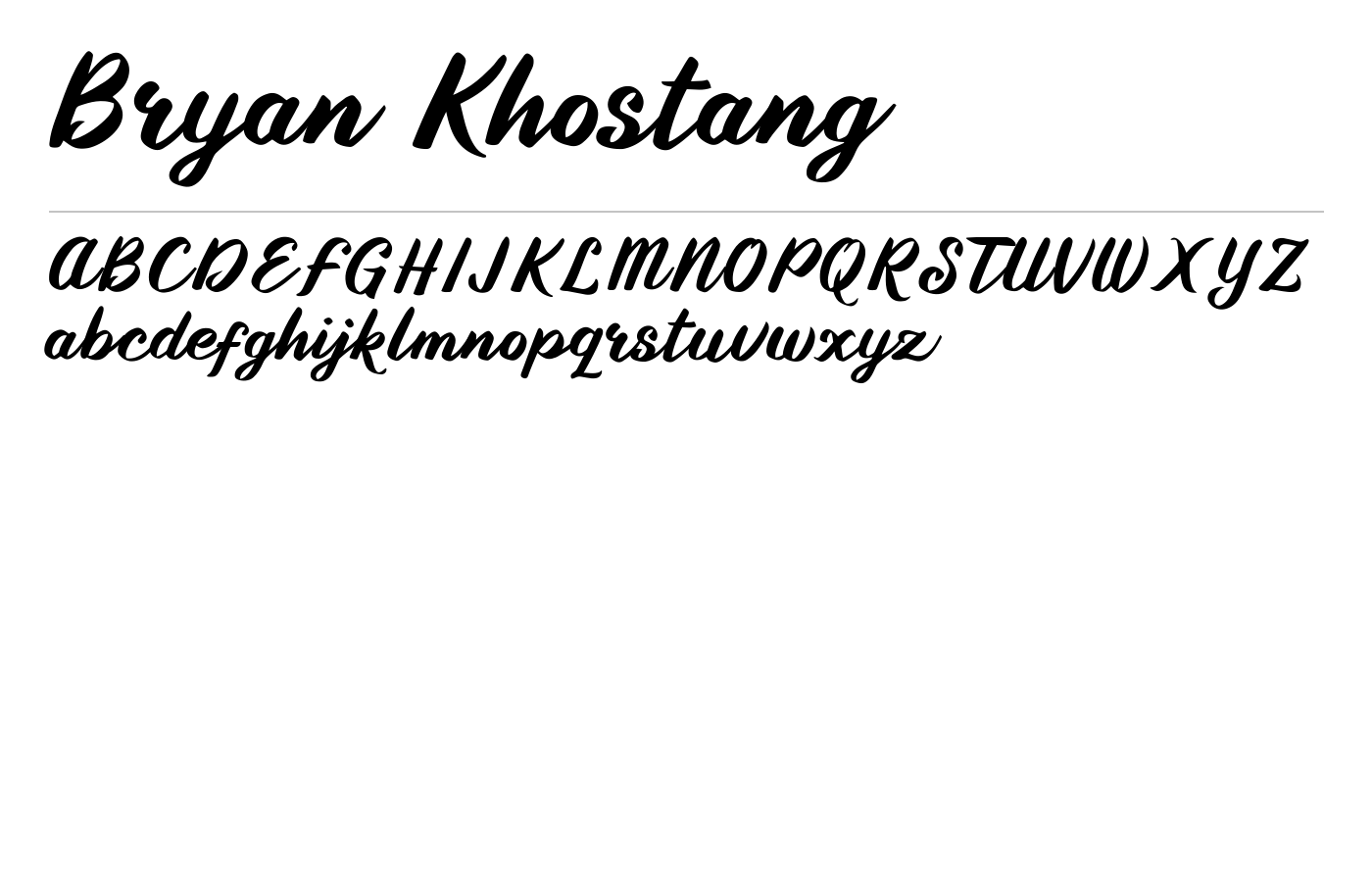
Bryan Khostang is a lively script font with a bold and brush-like style that conveys a sense of energy and personalization. Its smooth, connected letterforms and moderate contrast create a friendly yet confident feel, making it ideal for creative branding, logos, and eye-catching headlines. This font works best where a dynamic, handcrafted touch is desired to add warmth and personality.
Bryan Khostang Font